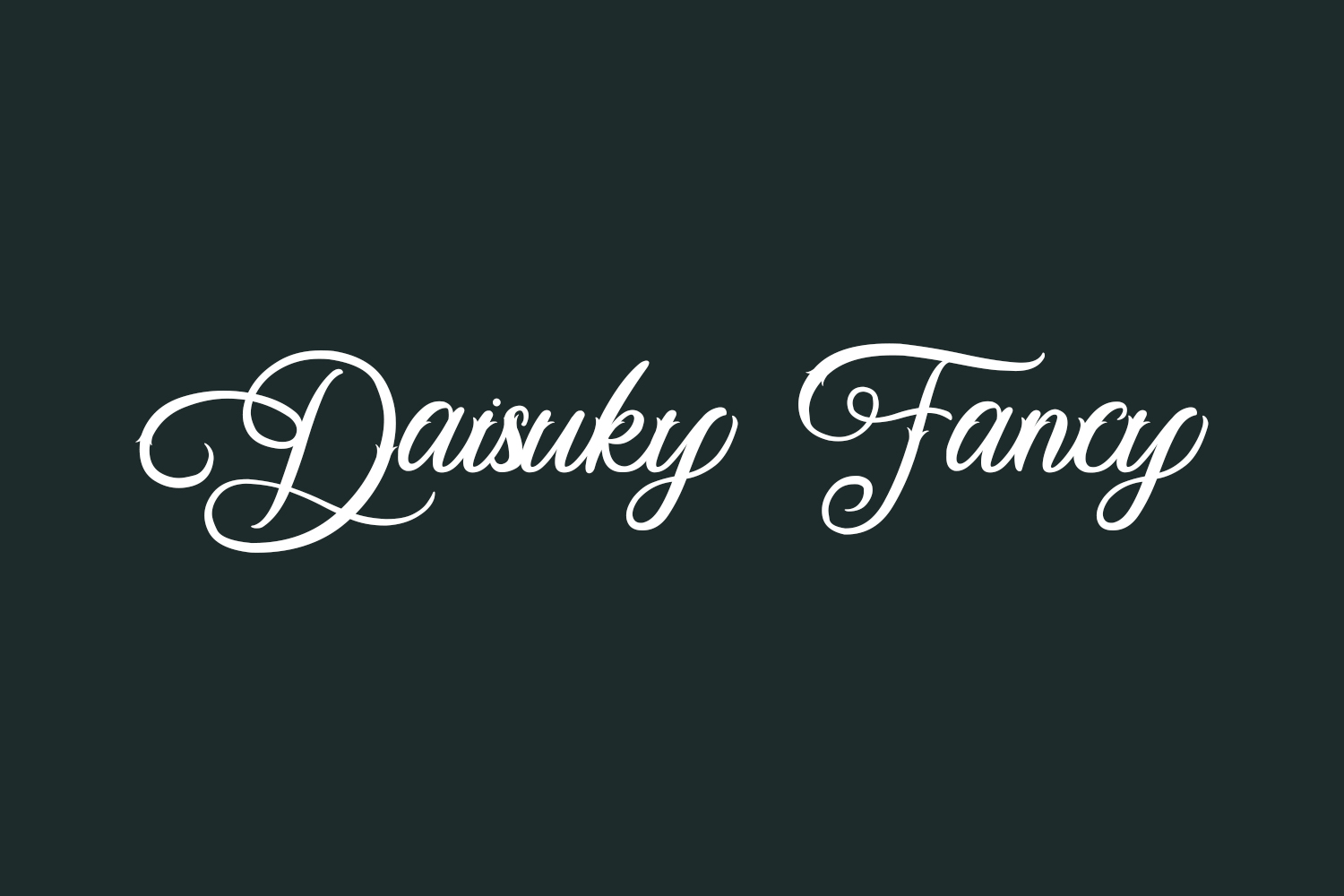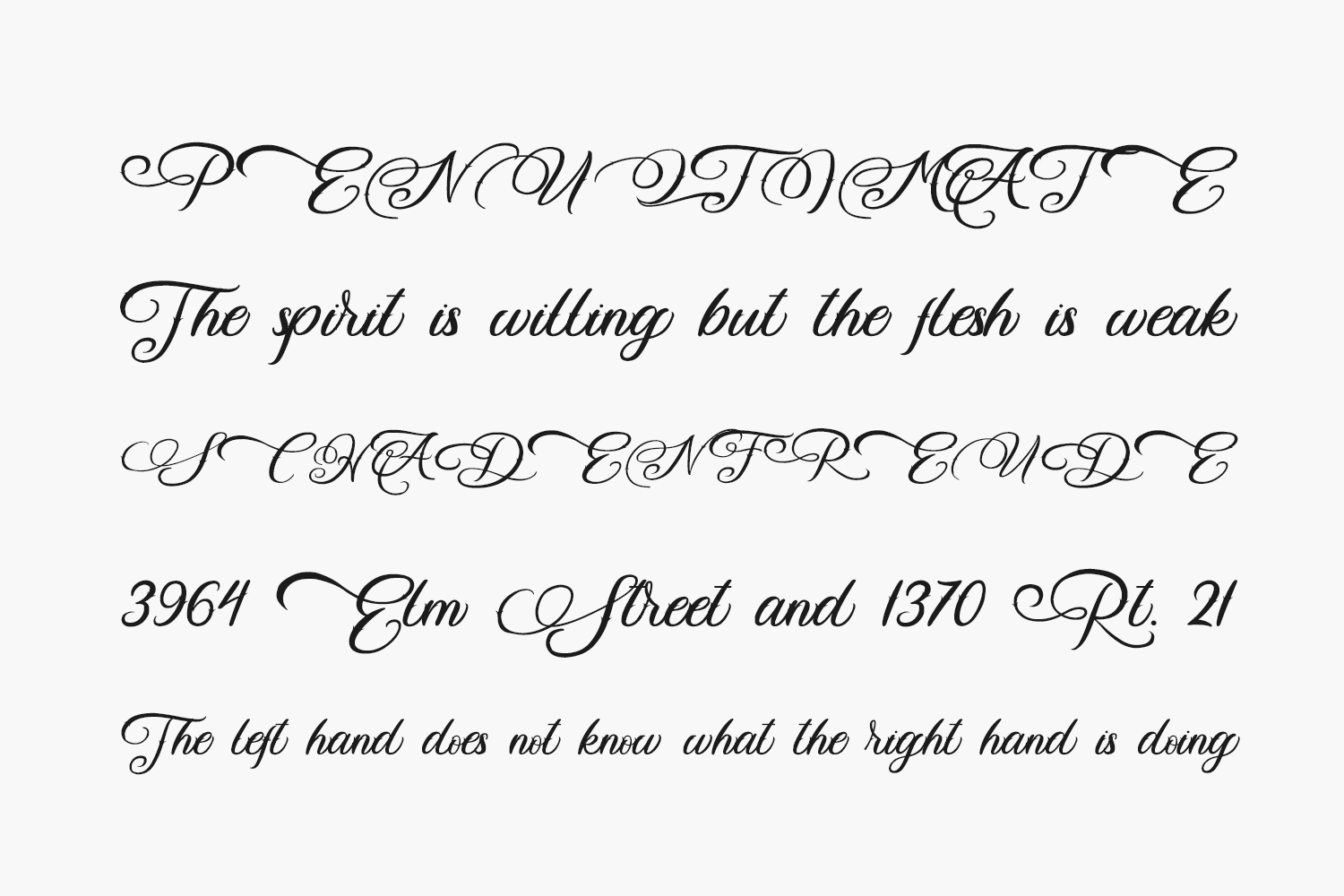
Daisuky Fancy Free Font is a delicate, elegant, and flowing handwritten font. It has beautiful and well balanced characters and as a result, it matches a wide pool of designs. Daisuky Fancy features a varying baseline, smooth lines, gorgeous glyphs, and stunning alternates. Daisuky Fancy Free Font was designed by Daisuky Fancy and is free for personal use only. Please purchase the full version for commercial use.